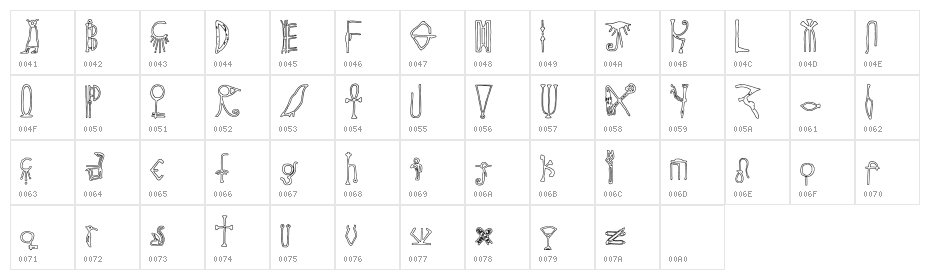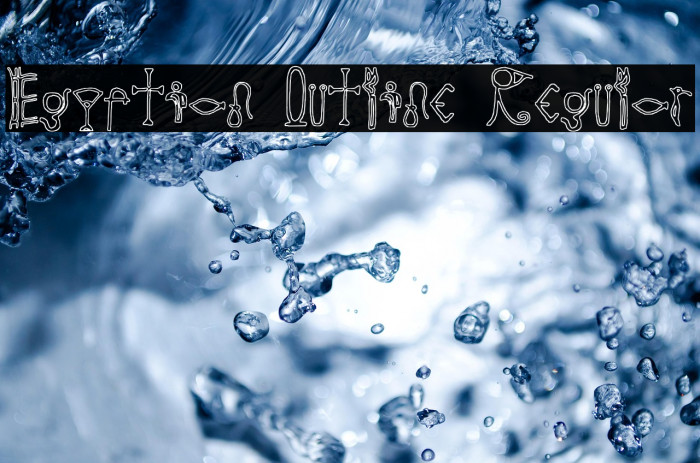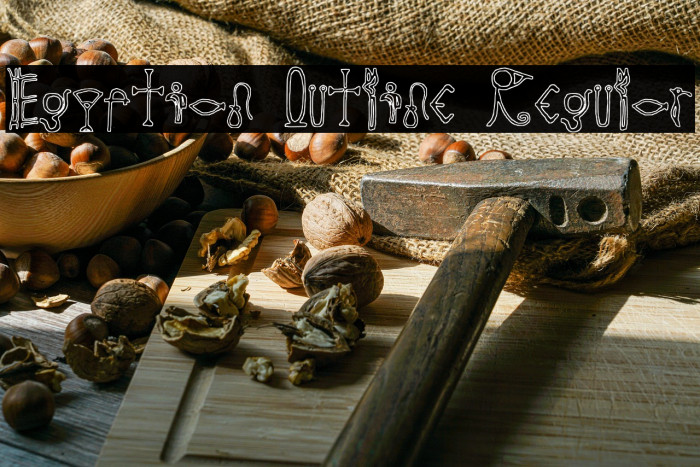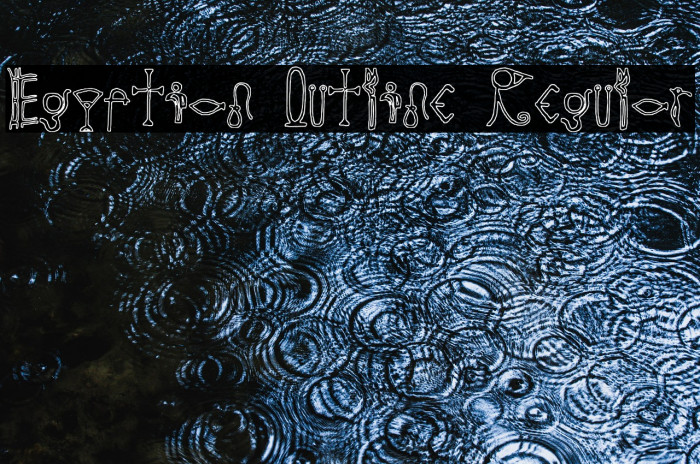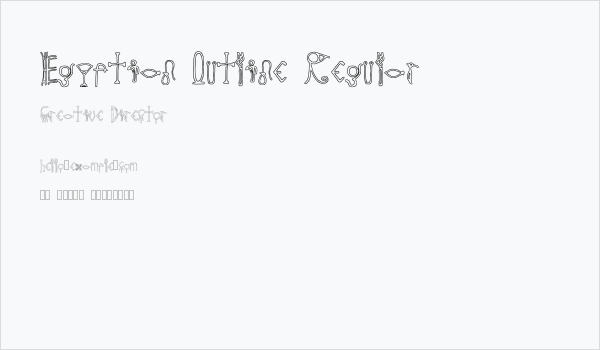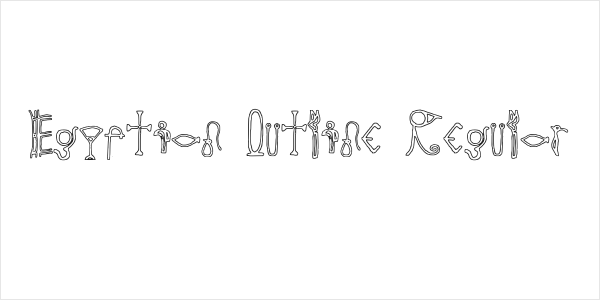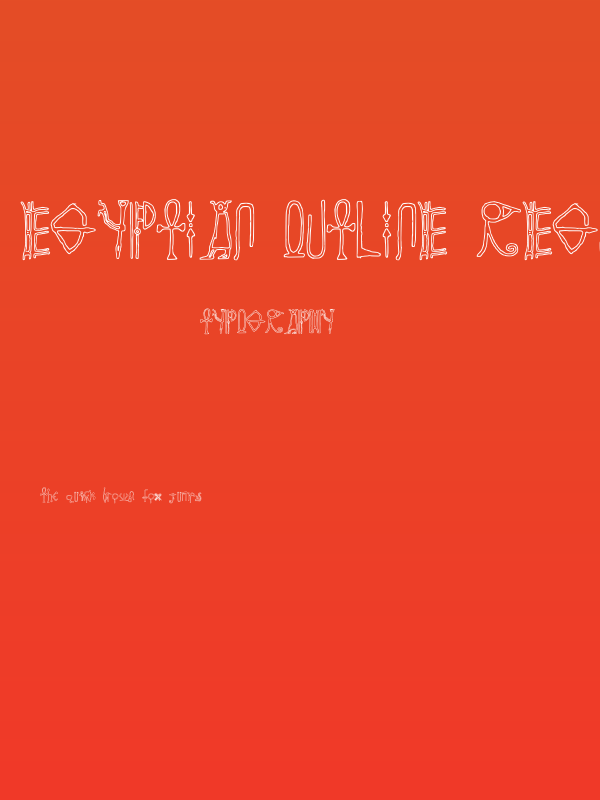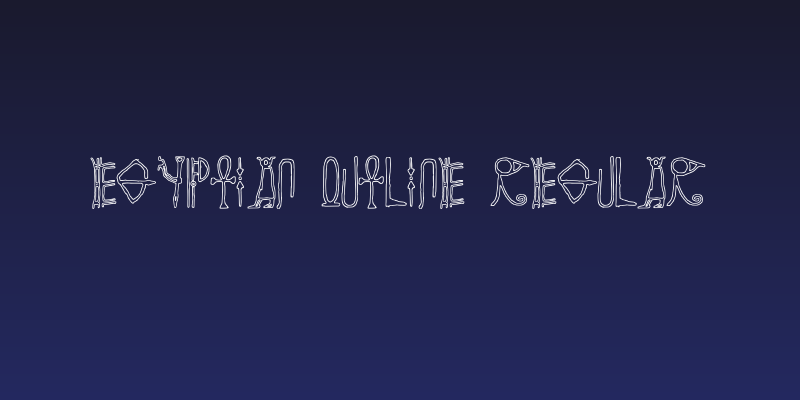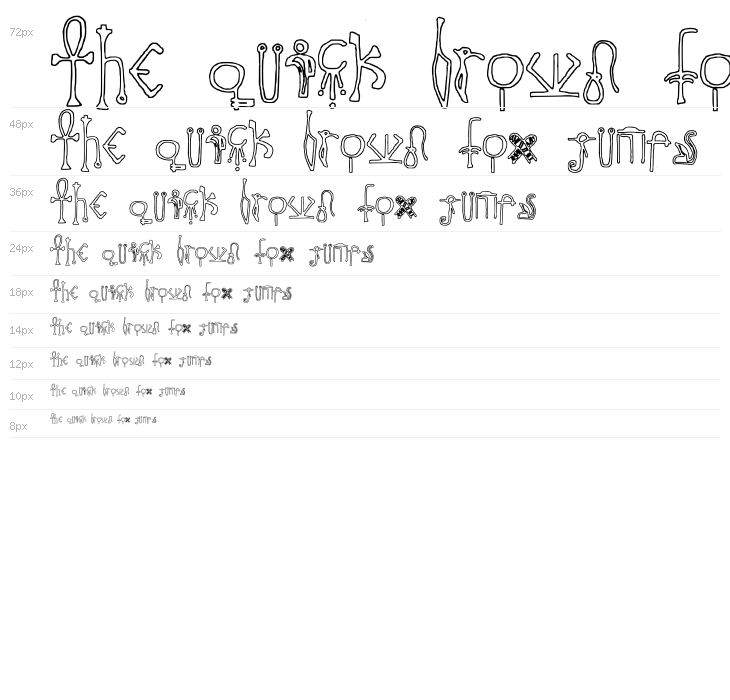
Egyptian Outline Regular Font
This font features an intricate and artistic design inspired by ancient Egyptian hieroglyphs. Each character is outlined, giving it a distinct, decorative appearance. The letters incorporate elements reminiscent of Egyptian symbols, with unique shapes and forms that evoke a sense of history and mystery. The uppercase and lowercase letters maintain a consistent style, with elaborate details that make each character stand out. The numbers and special characters are equally stylized, fitting seamlessly into the overall aesthetic. This font is perfect for projects that require a touch of the exotic and historical, offering a visually captivating experience.
Use CaseLogos, Headlines, Artistic projects
Proposed ProjectsIdeal for themed events, historical presentations, artistic posters, and decorative titles.